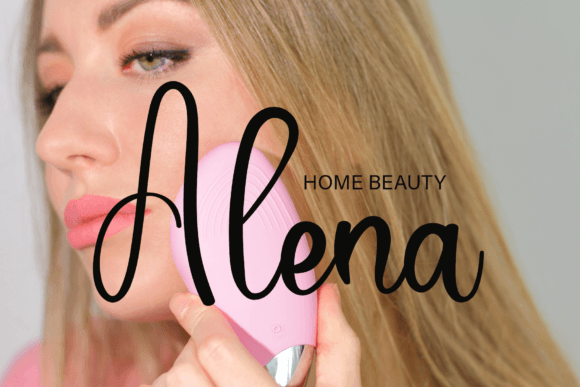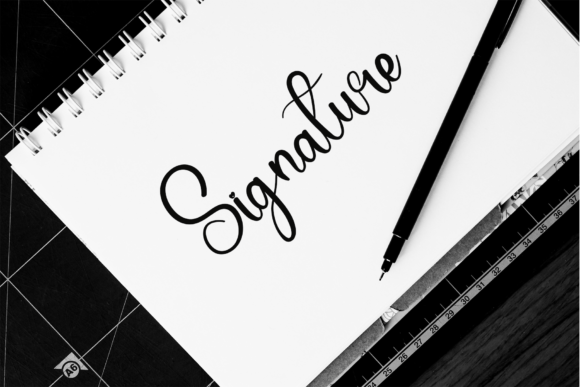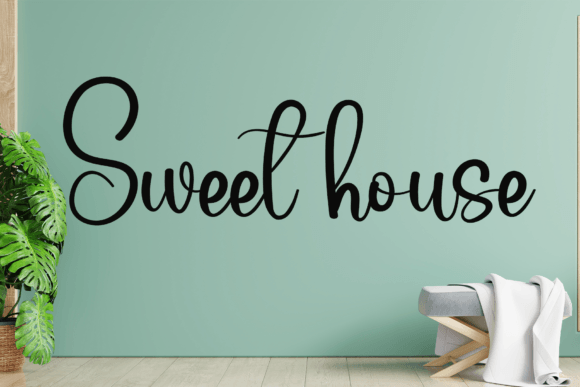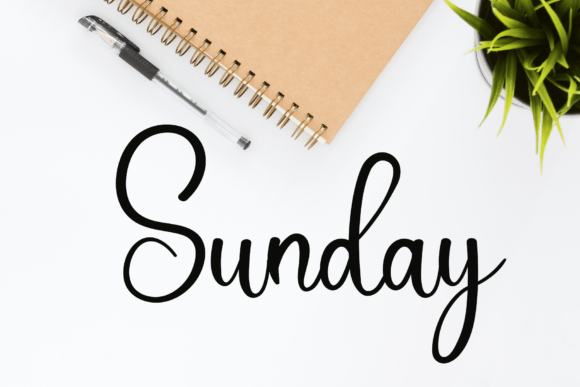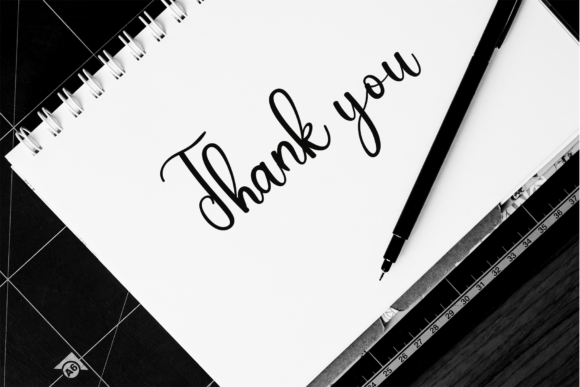
Introducing Beautiful Beach Font: Elevate Your Designs with Elegance
Are you on the hunt for a font that exudes elegance and sophistication? Look no further than the Beautiful Beach Font. This stunning handwritten font is designed to add a touch of refinement to your favorite projects, making it perfect for designers and crafters alike. With its unique and timeless style, Beautiful Beach Font is sure to capture your heart and inspire your creativity.
The Beauty of Beautiful Beach Font
Beautiful Beach Font is a neat and beautiful handwritten font that boasts an elegant touch. Its distinct style is characterized by flowing lines, subtle curves, and a sophisticated flair that sets it apart from other fonts. Whether you’re working on a branding project, crafting a social media post, or designing a stunning visual, this font is sure to make your designs shine.
Key Features of Beautiful Beach Font
- Elegant and Refined: Beautiful Beach Font features an elegant and refined design that adds a touch of sophistication to any project.
- Handwritten Style: With its handwritten style, this font exudes a personal and creative feel that’s perfect for designers and crafters.
- Distinct and Timeless: The font’s unique style is both distinct and timeless, making it a versatile choice for a wide range of projects.
- Easy to Read: Despite its elegant design, Beautiful Beach Font is easy to read, making it perfect for body text and headlines.
Beautiful Beach Font is a versatile font that’s perfect for designers and crafters working on a variety of projects. Whether you’re creating:
- Branding Materials: Use Beautiful Beach Font to create stunning logos, business cards, and letterheads that showcase your brand’s personality.
- Social Media Graphics: Add a touch of elegance to your social media posts and stories with this beautiful font.
- Web Design: Use Beautiful Beach Font to create visually appealing website headers, titles, and body text.
- Crafting Projects: Add a personal touch to your crafting projects, such as handmade cards, gift tags, and scrapbooking pages.
Why Choose Beautiful Beach Font?
With so many fonts available, why choose Beautiful Beach Font? Here are just a few reasons:
- Unique Style: Beautiful Beach Font features a unique and distinctive style that sets it apart from other fonts.
- Elegant and Refined: This font exudes elegance and sophistication, making it perfect for high-end designs.
- Timeless Appeal: The font’s timeless style ensures that your designs will remain stylish and relevant for years to come.
Get Ready to Fall in Love with Beautiful Beach Font
In conclusion, Beautiful Beach Font is a stunning handwritten font that offers a unique and elegant solution for designers and crafters. With its distinct style, refined design, and versatility, this font is perfect for a wide range of projects. Whether you’re working on branding materials, social media graphics, web design, or crafting projects, Beautiful Beach Font is sure to make your designs shine. So why not give it a try and experience the beauty of Beautiful Beach Font for yourself?